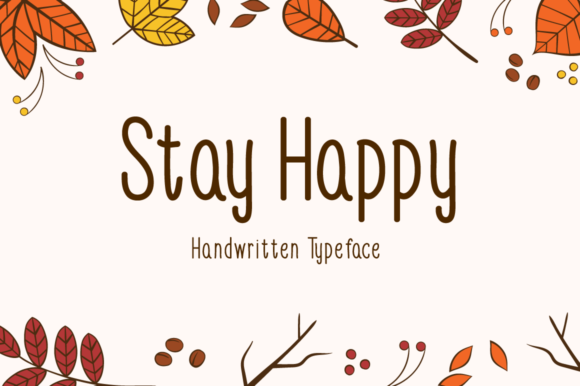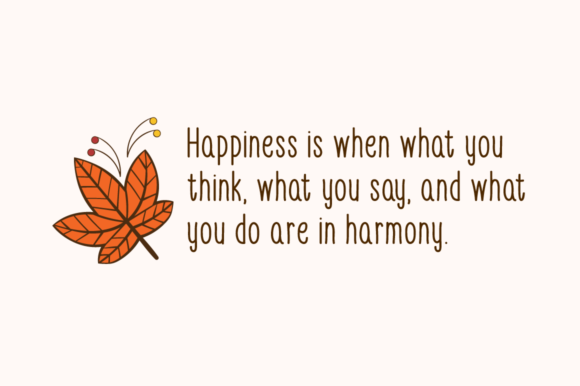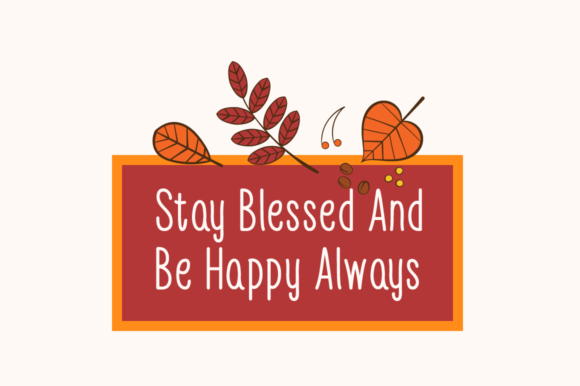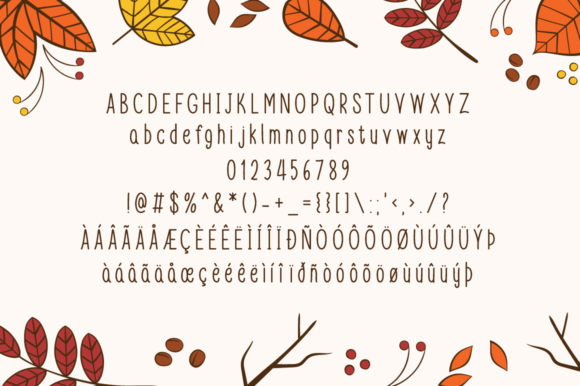
Stay Happy Font
About Stay Happy Font
Stay Happy is a sweet and friendly handwritten font. Its natural and unique style makes it incredibly fitting to a large pool of designs. The only limit is your imagination!